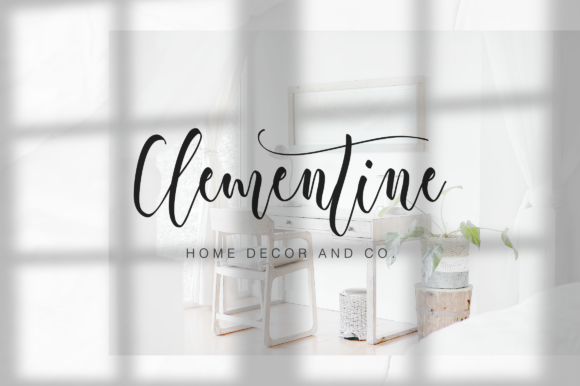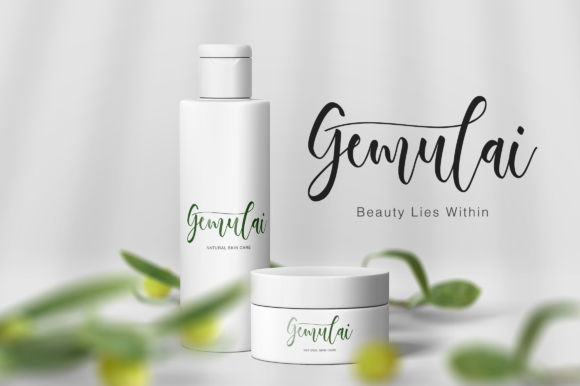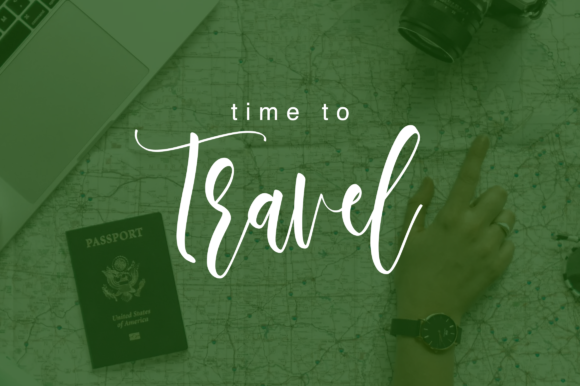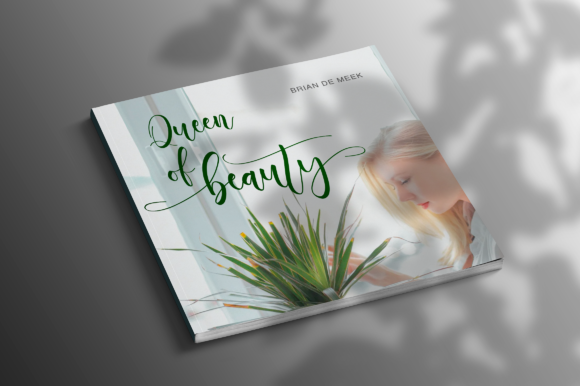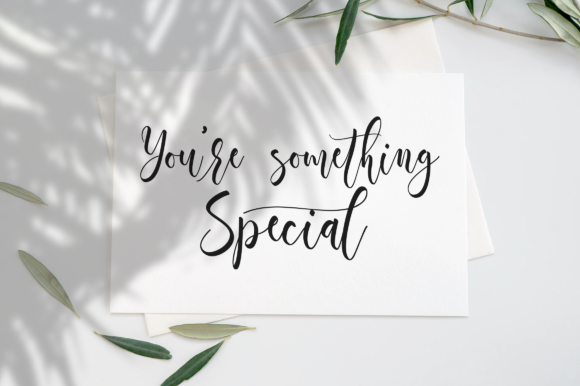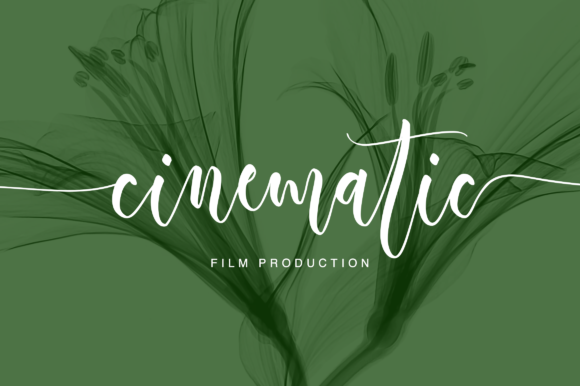
Introduction to Mella Font
Have you ever been stuck on a creative project, staring at a blank page, searching for the perfect font to bring your design to life? We’ve all been there. For designers, finding that elusive font can be a game-changer, making all the difference between a mediocre design and a truly outstanding one. And that’s exactly where Mella Font comes in – a modern calligraphy font that combines classic style with a friendly feel, making it the perfect addition to any creative project.
Key Features of Mella Font
- Unique, modern design perfect for modern and creative projects
Honest Review: Mella Font
What works well: ✨ The Mella Font has a clean and elegant design that makes it perfect for creative projects. It’s available in various styles and weights, making it versatile and easy to use. The high-quality design ensures that it looks great on any background, even with a transparent background.
- Extensive character set
- Supports multiple languages
- Available in various styles and weights
Overall, I’m impressed with the Mella Font. It’s a great resource for designers who need a high-quality font for their creative projects. While it has its limitations, it’s a valuable addition to any design library.
Experiment with different font sizes and styles to add visual interest to your design. You can also use Mella Font in combination with other design elements to create a unique look.
Common Use Cases for Mella Font
Mella Font is perfect for creating social media graphics, blog posts, and marketing materials. Its high-quality design and transparent background make it easy to integrate into any project.